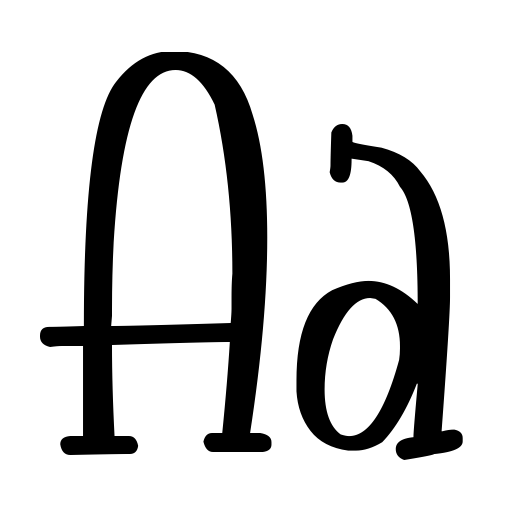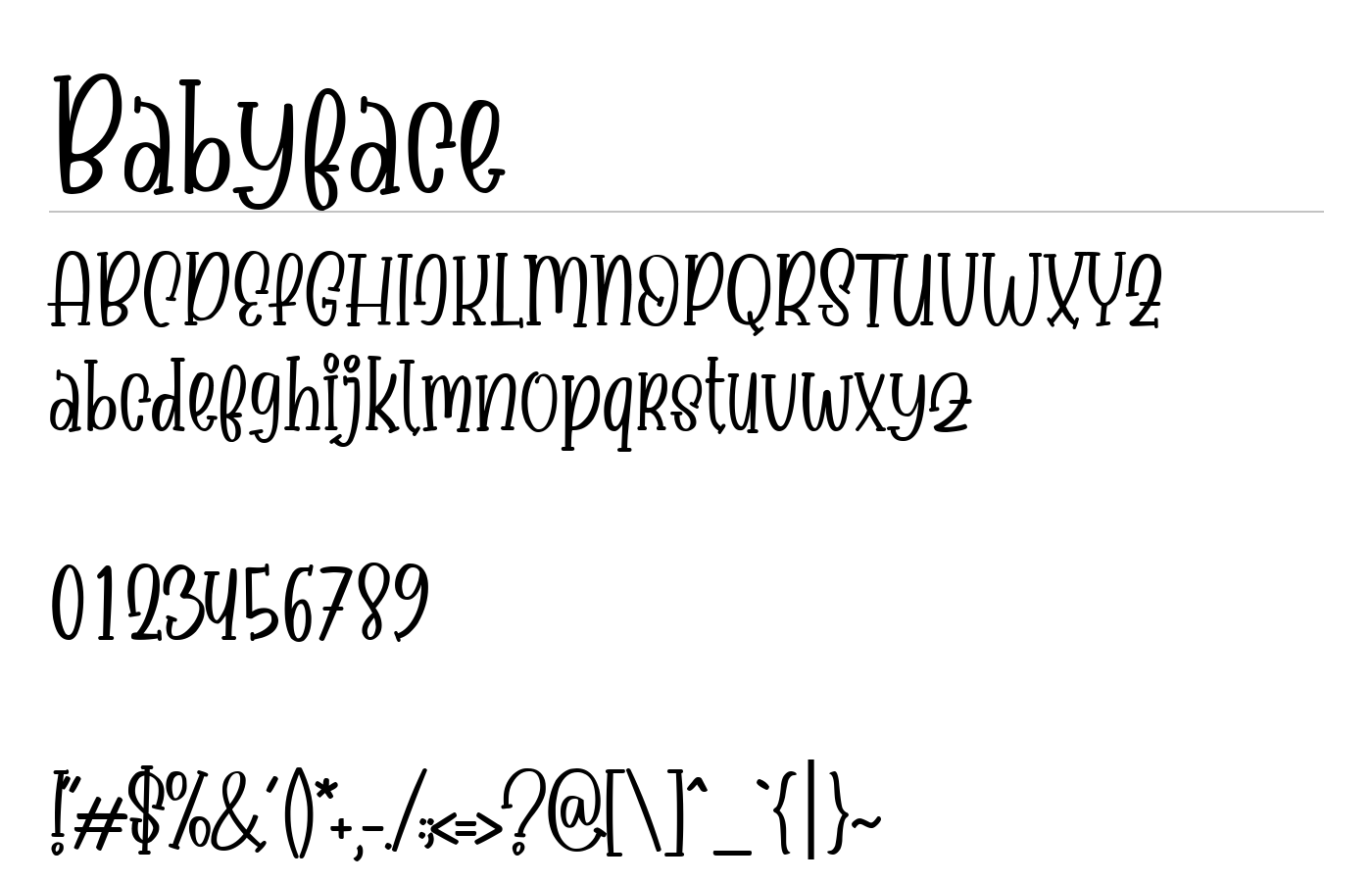
Babyface is a playful, narrow serif font with a hand-drawn, whimsical style that combines tall, slender letterforms and quirky, slight irregularities for a friendly, approachable feel. Its light weight and low contrast strokes make it ideal for children's books, casual branding, or fun headlines where personality and charm are key. This font works well in creative projects that need a touch of lightheartedness without sacrificing readability.
Babyface Font
About Babyface Font